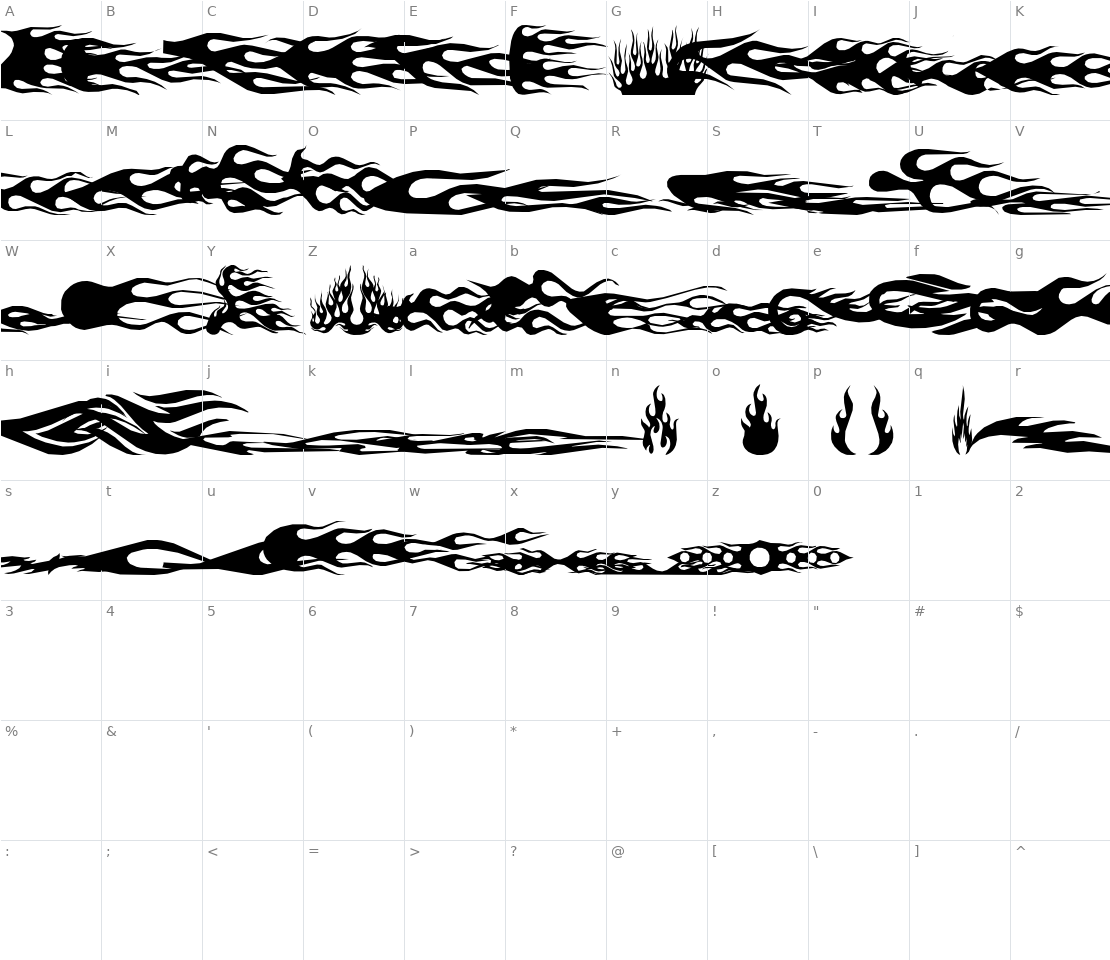
Flamez
by Marioz
Flamez is a dingbats font by Marioz packed with flame, fire, and tribal-style ornamental symbols. The designs lean into tattoo and hot-rod culture, with sharp, sweeping shapes that work well as standalone graphics or decorative accents. Useful for building borders, filling negative space, or adding heat to posters and apparel designs where you need ready-made fire elements without drawing them from scratch.